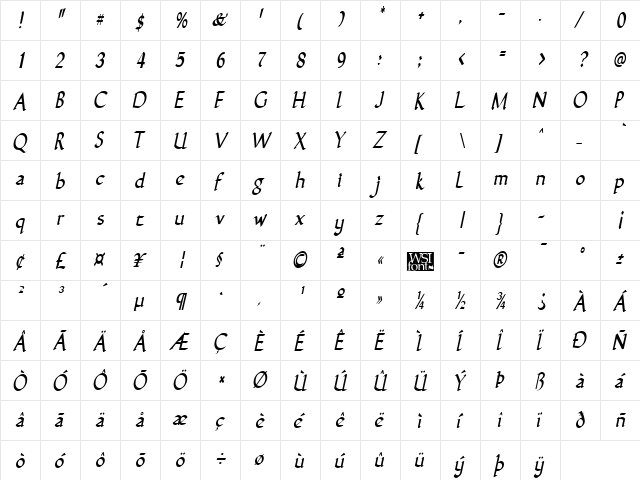
GuntherNarrow Italic Font Preview
GuntherNarrow Italic
GuntherNarrow Italic Font Details
Design Context for GuntherNarrow Typeface
GuntherNarrow is a composed and adaptable typeface that performs quietly and consistently across a wide range of design contexts. Its italic angle brings a sense of urgency and motion to the letterforms. Its narrow stance lets it pack a punch even in space-constrained designs.
Pro Tip: Use GuntherNarrow for emphasis, pull quotes, and subheadings where its slanted energy can add rhythm to the layout.